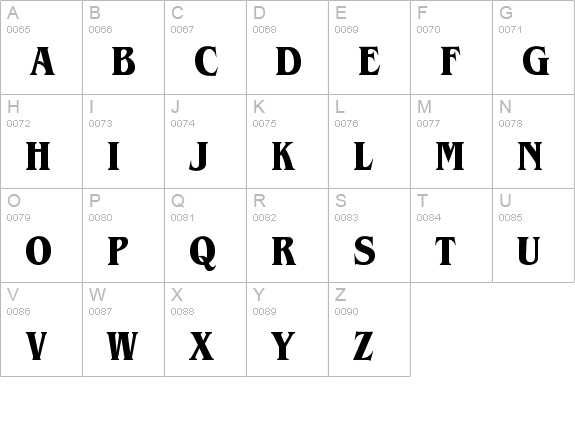
Benguiat* Condensed Bold is a strong, high-contrast, condensed-width variant in the Benguiat* typeface family \xE2\x80\x94 well suited to headlines, attention-grabbing titles, and strong calls-to-action.
Benguiat Condensed Bold font exudes a bold and impactful presence with its strong, condensed letterforms. This typeface commands attention and adds a touch of sophistication to any design project. Its sleek and modern design makes it perfect for headlines, titles, and branding materials that require a powerful visual impact. The sharp, angular shape of Benguiat Condensed Bold font lends a sense of authority and strength, making it an excellent choice for conveying messages with confidence and clarity. Whether used in print or digital media, this font stands out and grabs the viewer's attention with its bold and striking appearance. And the best part? Benguiat Condensed Bold font is available for free download at FontsMarket.com. So you can easily access this versatile and impactful typeface to elevate your designs and make a bold statement. Don't miss out on the opportunity to enhance your projects with the dynamic energy of Benguiat Condensed Bold font. Download it now and let your creativity shine!